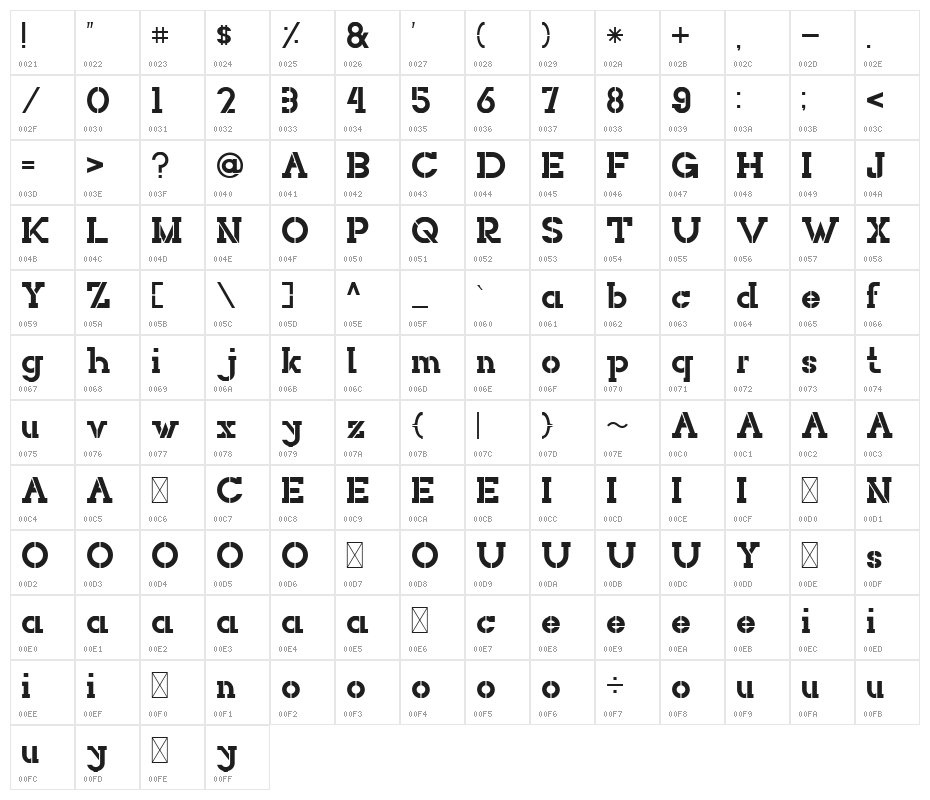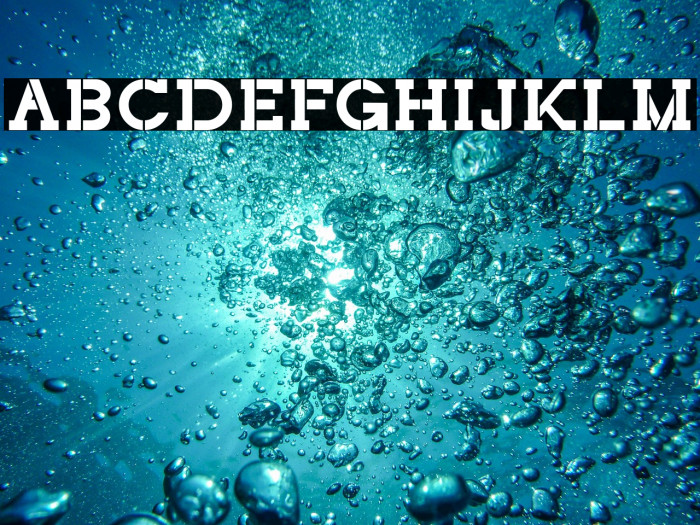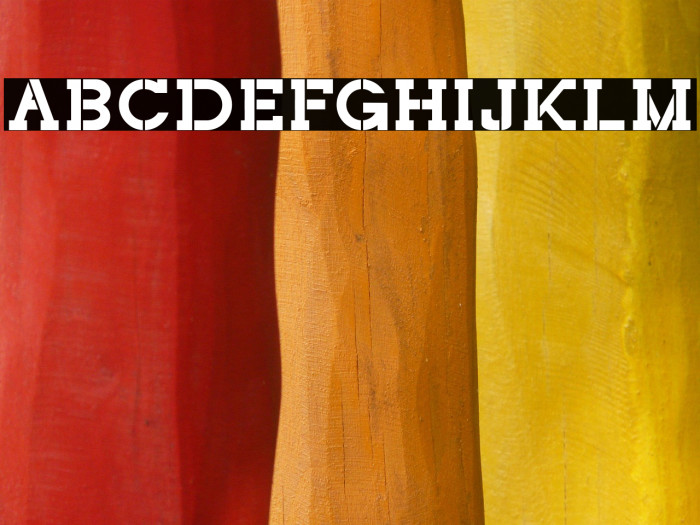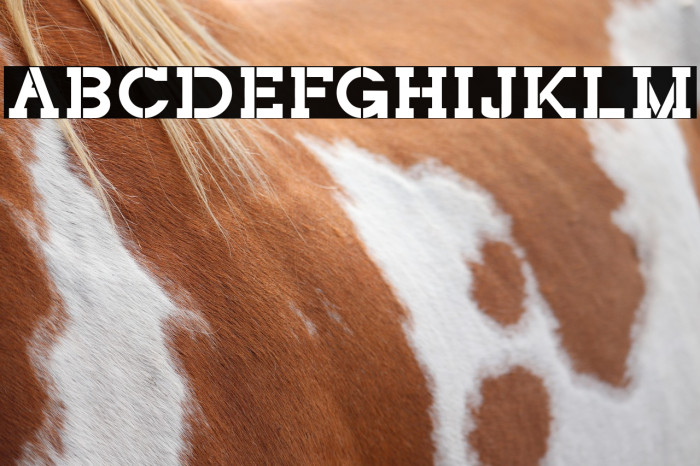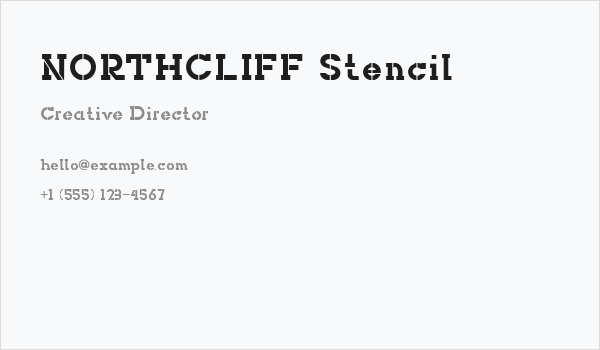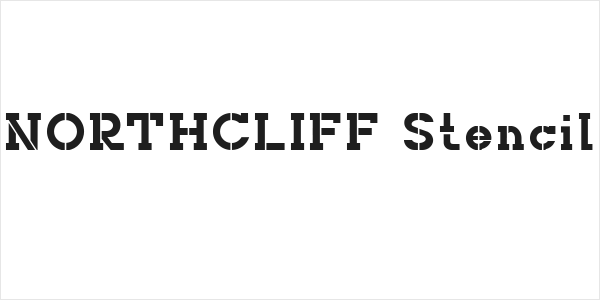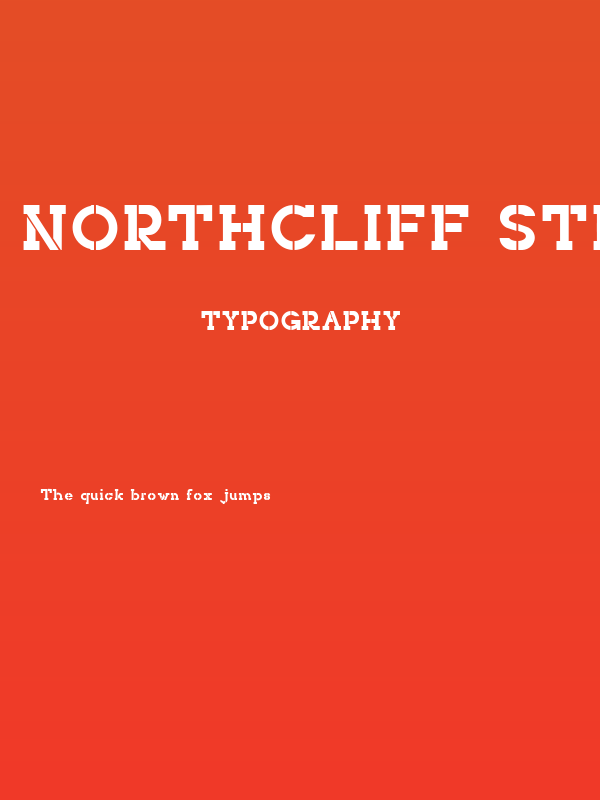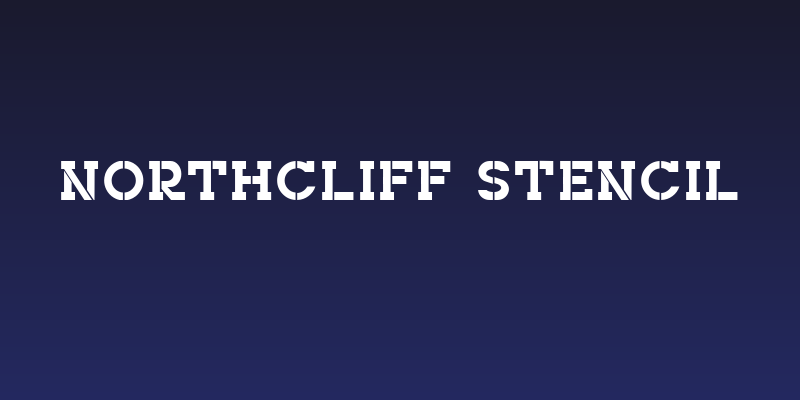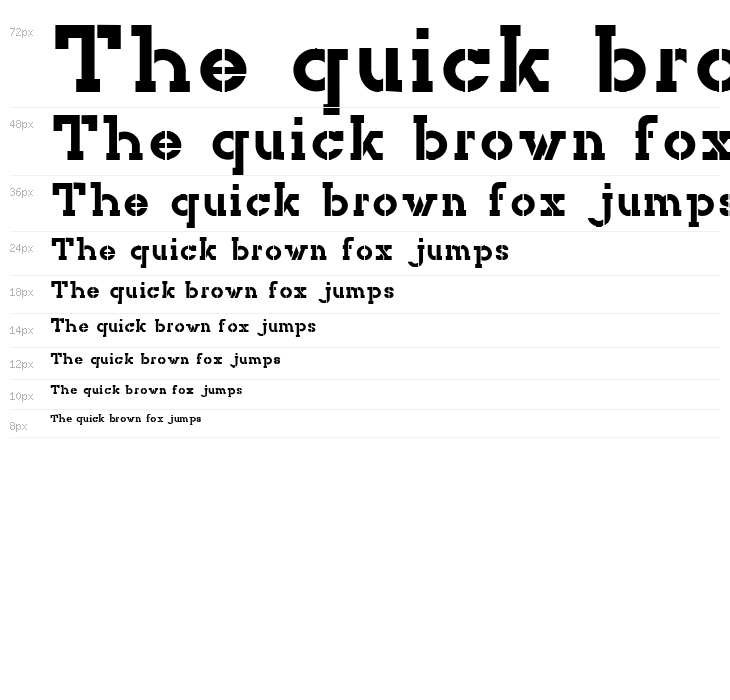
NORTHCLIFF Stencil Font
NORTHCLIFF Stencil Description
This font features a bold, stencil-like design with distinct cutouts in each character, giving it a rugged and industrial appearance. The uppercase letters are particularly striking, with strong geometric shapes and consistent spacing. The lowercase letters maintain the same boldness, with unique cutouts that enhance readability while preserving the stencil aesthetic. Numbers and special characters follow the same design principles, ensuring a cohesive look across all glyphs. The font's style is both modern and utilitarian, making it suitable for various creative applications.
| Overall Style | Modern, Industrial |
| Use Case | Headlines, Logos, Signage |
| Proposed Projects | Ideal for branding, signage, posters, and any project requiring a strong, industrial aesthetic. |